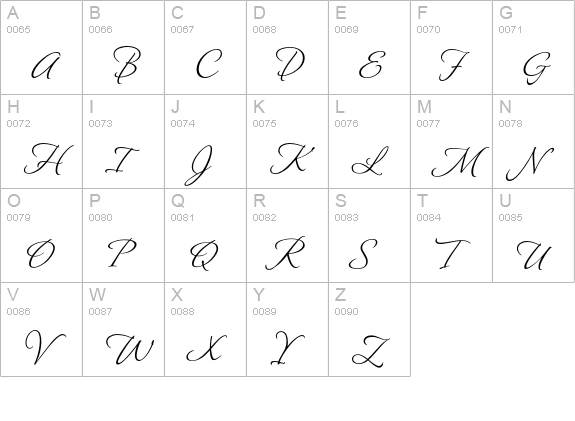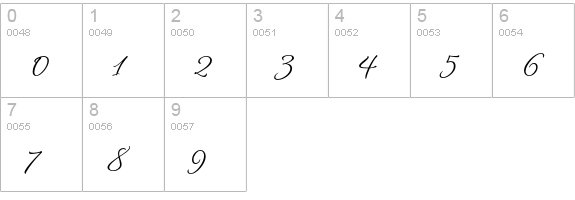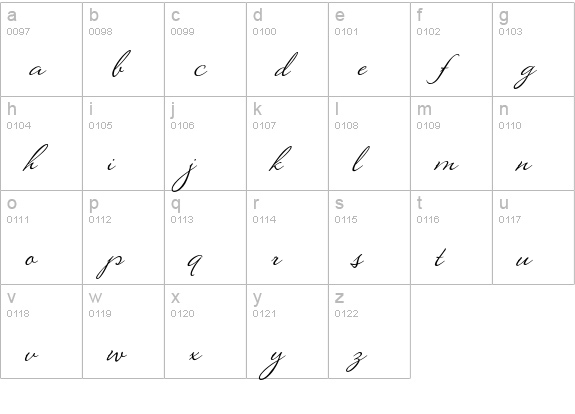
Introducing Montague Script font, a beautifully crafted typeface that exudes elegance and sophistication. With its flowing curves and delicate strokes, Montague Script is perfect for adding a touch of luxury to your projects. This font is free to download at FontsMarket.com, making it accessible to all designers looking to elevate their designs with a touch of class. Whether you're working on wedding invitations, branding materials, or any other project that calls for a touch of finesse, Montague Script is sure to make a statement. Download this exquisite font today and take your designs to the next level.